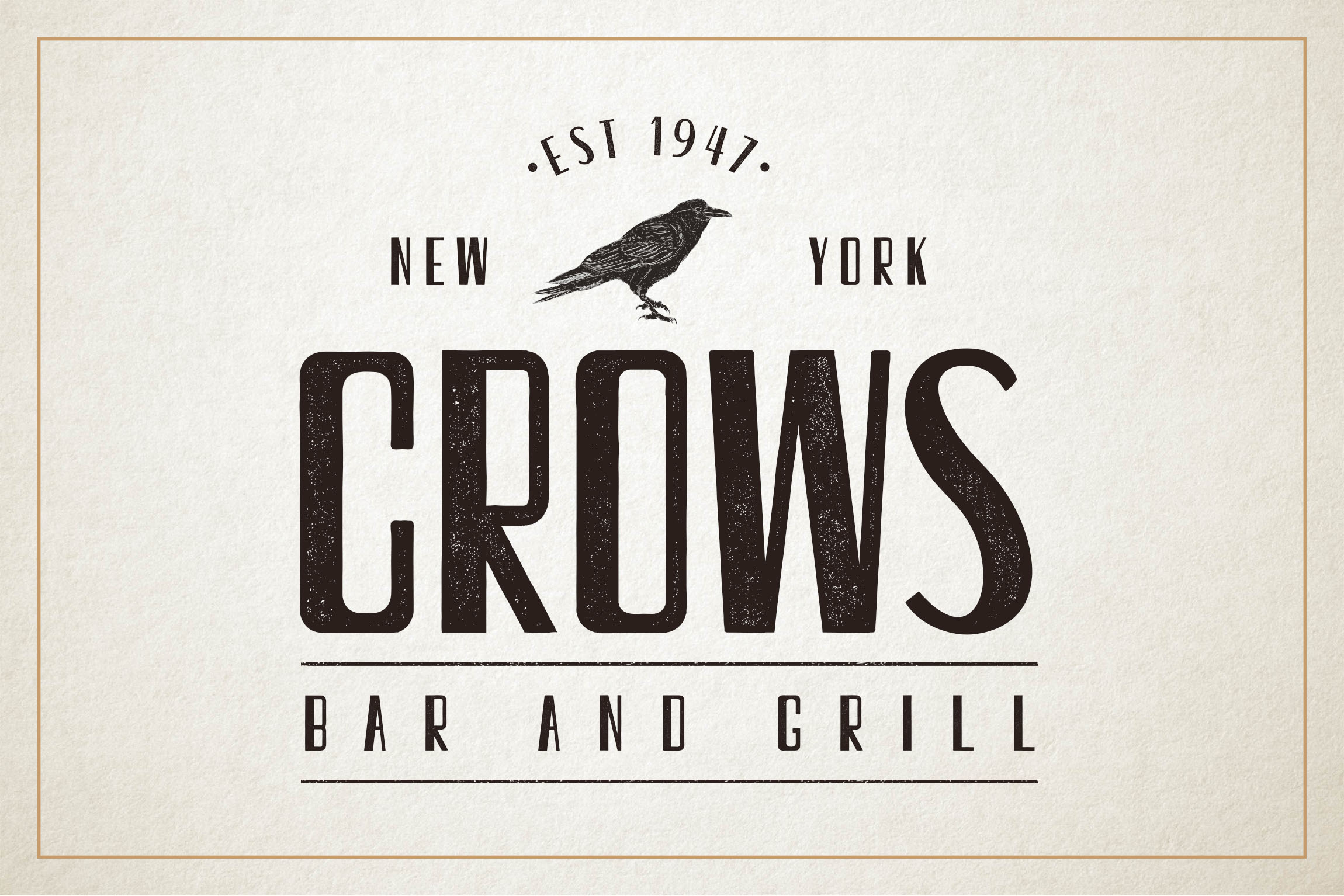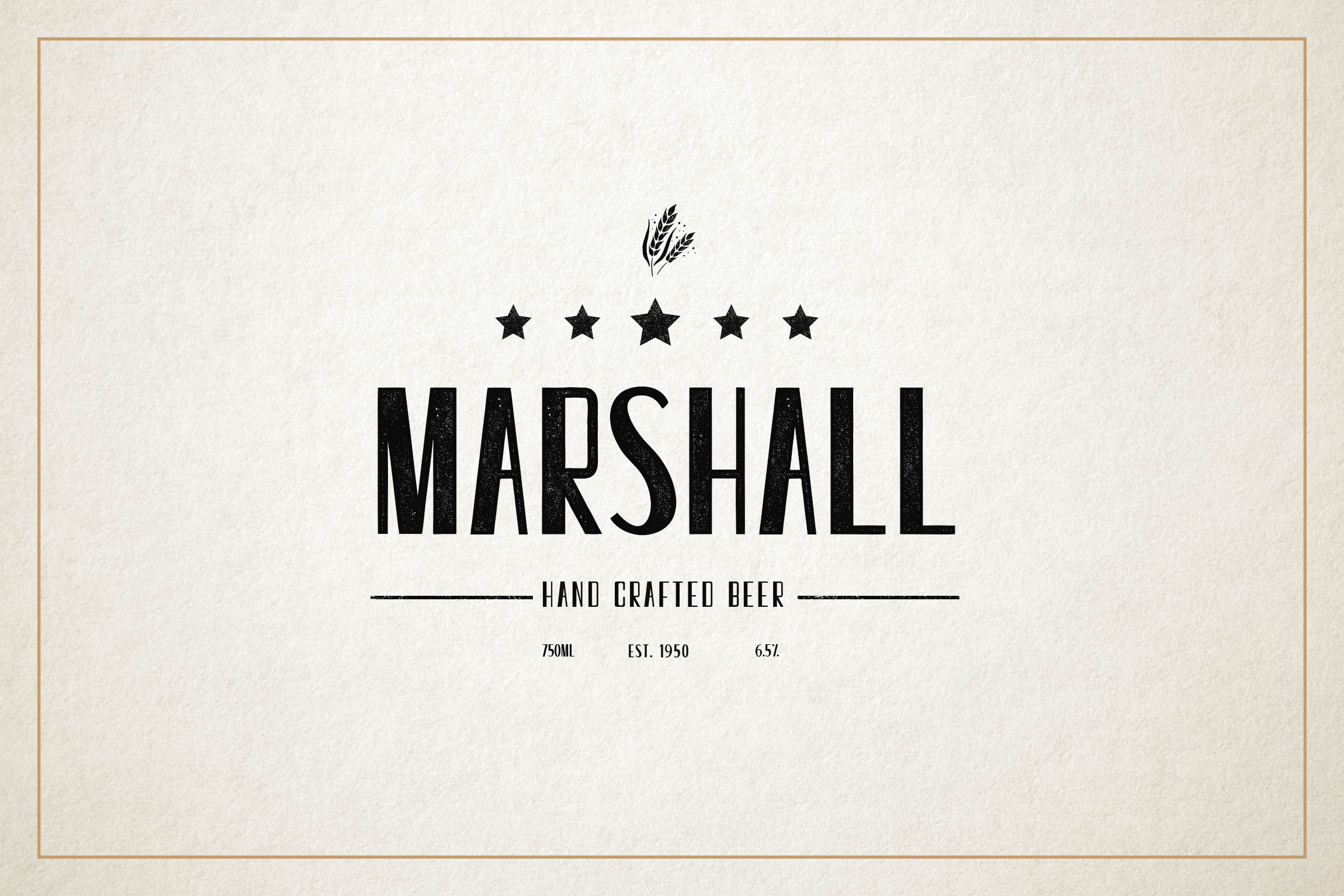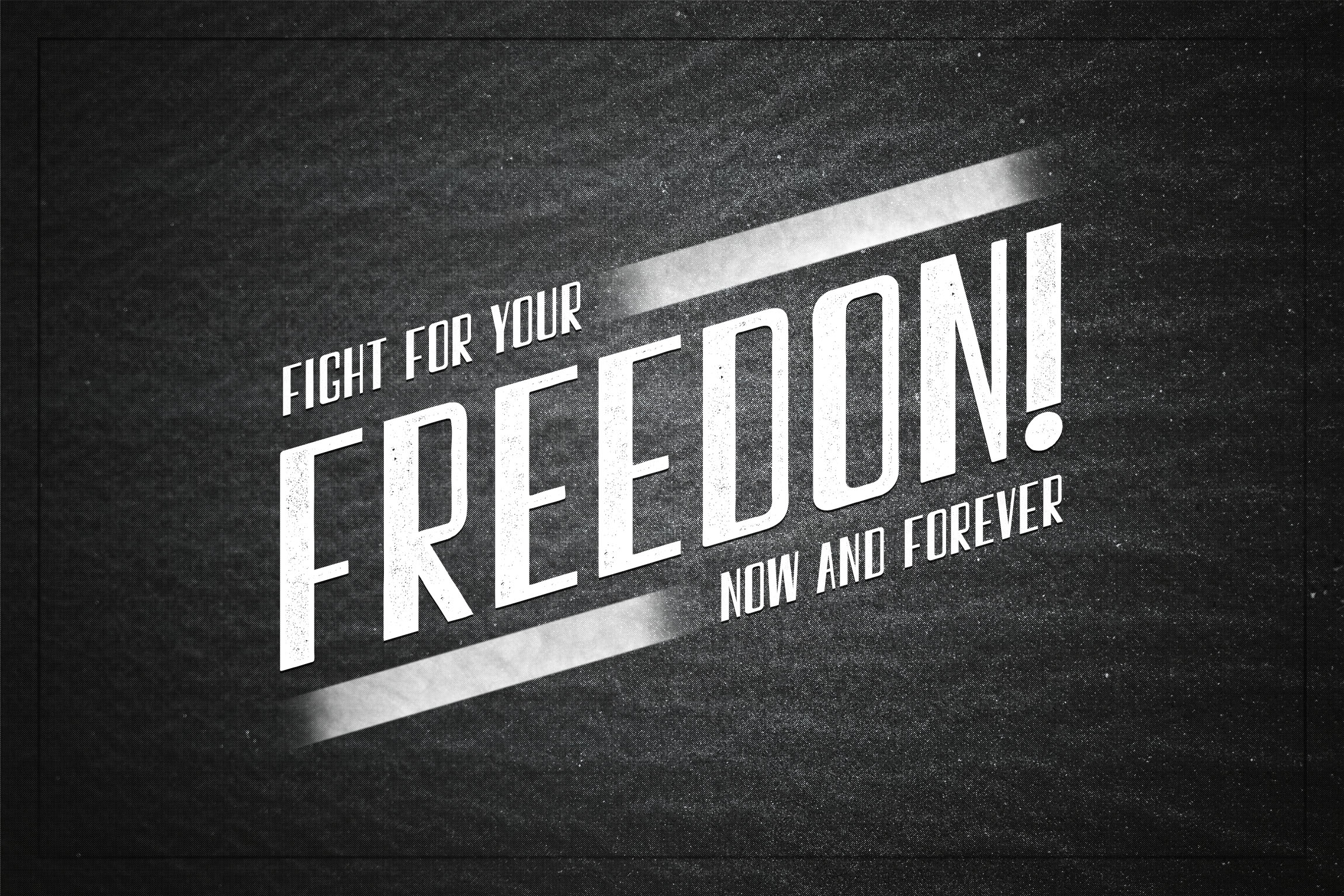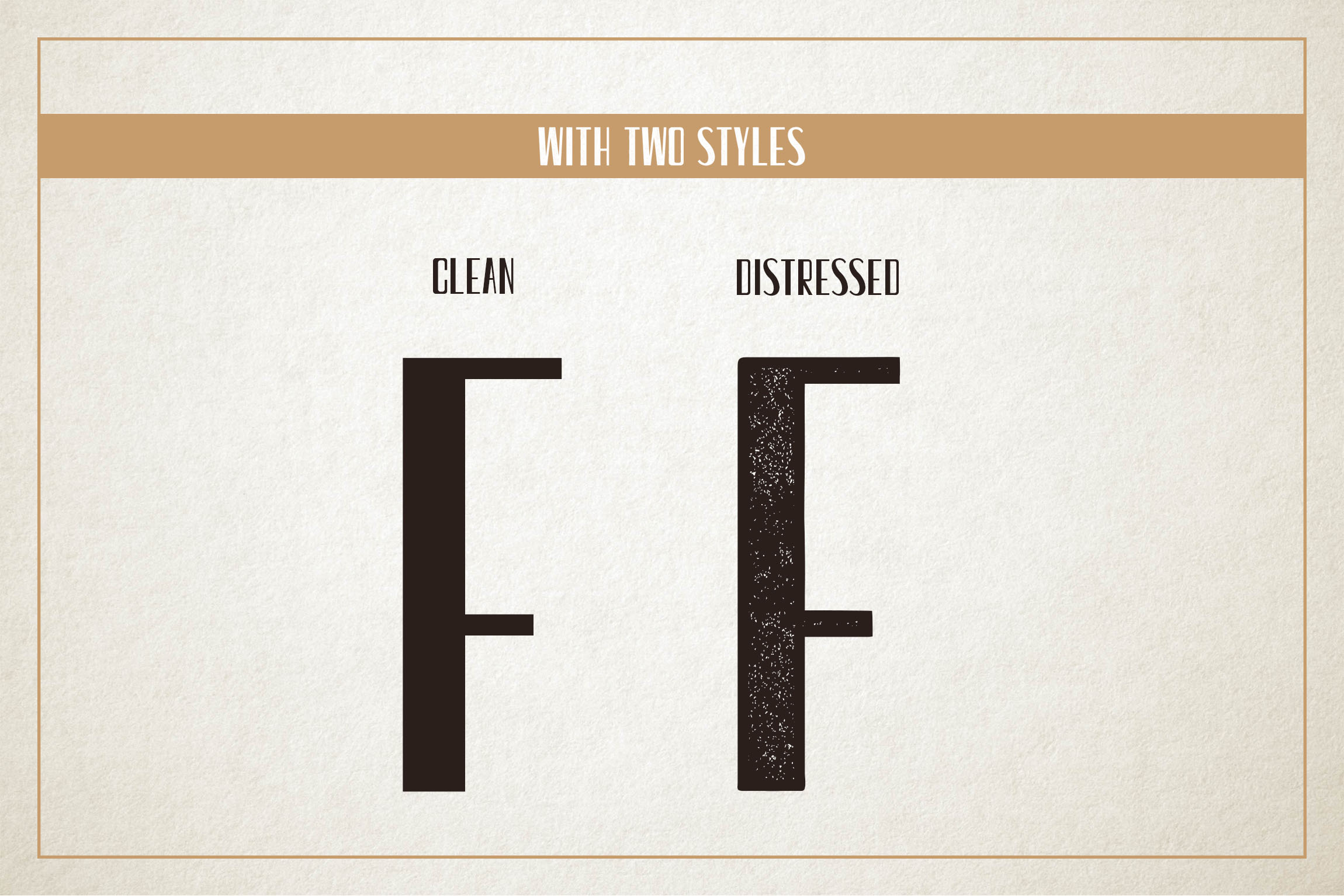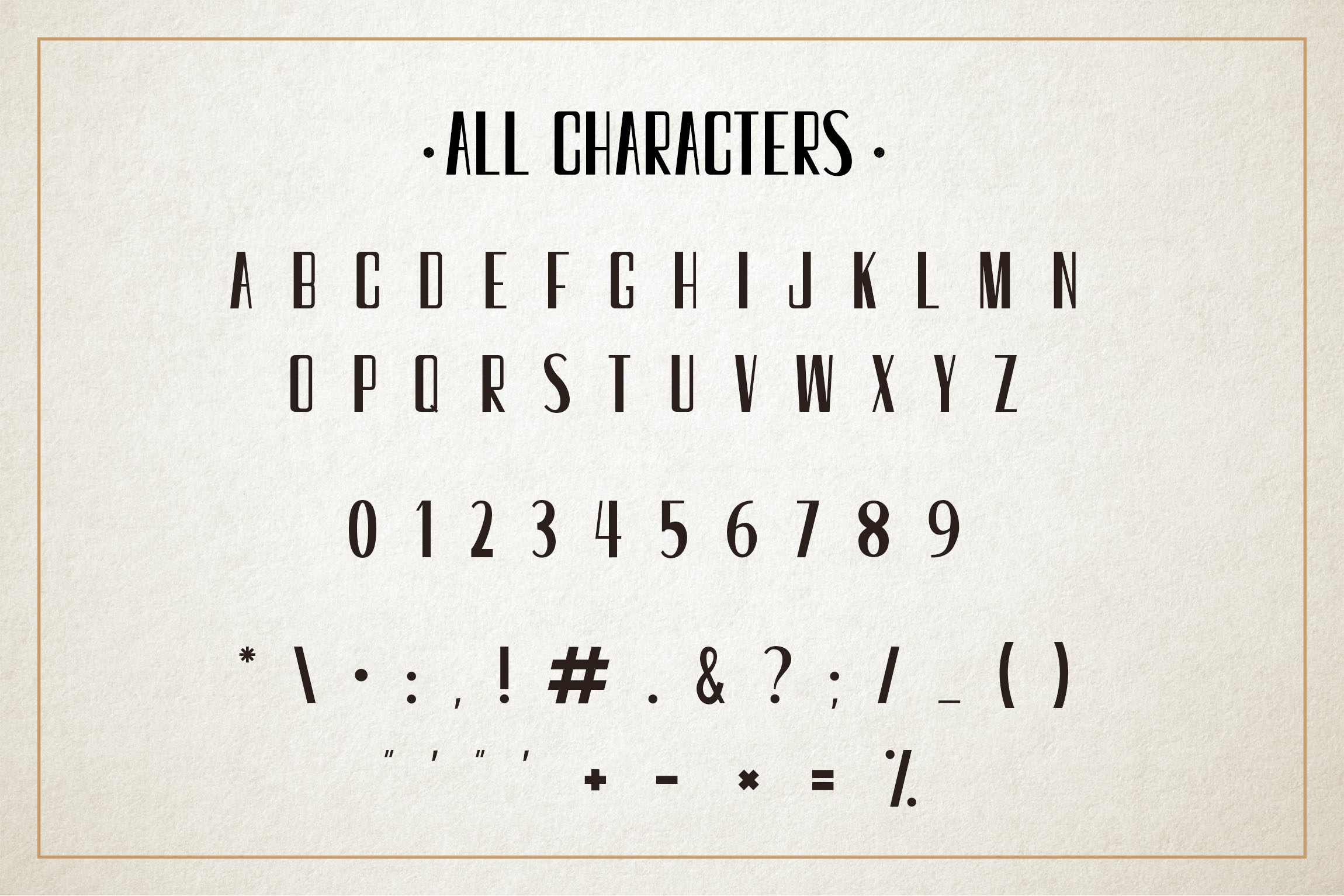
Introducing Clutch Font: The Ultimate Retro Design Companion
Are you a designer or crafter looking for the perfect font to give your retro designs a nostalgic touch? Look no further than Clutch Font, a versatile sans serif font that is sure to become your go-to choice for all your design needs. In this article, we’ll take a closer look at what makes Clutch Font so special and how it can elevate your designs to the next level.
What is Clutch Font?
Clutch Font is a modern sans serif font designed specifically with retro designs in mind. Its clean lines, simple shapes, and classic feel make it the perfect choice for designers who want to create designs that evoke a sense of nostalgia and timelessness. Whether you’re working on a logo, a poster, or a packaging design, Clutch Font is sure to impress.
Two Styles for Maximum Flexibility
One of the standout features of Clutch Font is that it comes in two distinct styles: clean and distressed. This allows designers to mix and match the two styles to create unique and eye-catching designs. The clean version of Clutch Font is perfect for designs that require a crisp and modern look, while the distressed version adds a touch of grit and texture to your designs.
Combining Clean and Distressed Styles
The real magic happens when you combine the clean and distressed versions of Clutch Font. This creates a visually interesting contrast that adds depth and character to your designs. For example, you could use the clean version for headings and the distressed version for body text, or vice versa. The possibilities are endless, and the flexibility of Clutch Font makes it easy to experiment and find the perfect combination for your design.
Perfect for Retro Designs
Clutch Font is specifically designed with retro designs in mind, making it the perfect choice for designers who want to create designs that evoke a sense of nostalgia. Whether you’re working on a design project that requires a vintage feel or simply want to add a touch of retro flair to your designs, Clutch Font is the perfect choice.
Key Features of Clutch Font
- Clean and Distressed Styles: Clutch Font comes in two distinct styles, allowing designers to mix and match to create unique designs.
- Sans Serif Font: Clutch Font is a modern sans serif font with clean lines and simple shapes.
- Retro Design Perfect: Clutch Font is specifically designed with retro designs in mind, making it perfect for designers who want to create designs that evoke a sense of nostalgia.
- Flexible and Versatile: Clutch Font can be used for a wide range of design projects, from logos and posters to packaging and more.
Tips for Using Clutch Font
Here are a few tips for getting the most out of Clutch Font:
- Experiment with Different Styles: Don’t be afraid to experiment with different combinations of clean and distressed styles to find the perfect look for your design.
- Pair with Other Fonts: Clutch Font pairs well with other sans serif fonts, so feel free to experiment with different font combinations.
- Use for Headings and Body Text: Clutch Font is versatile enough to be used for both headings and body text, making it a great choice for designers who want a font that can do it all.
| Font Name | Clutch Font |
| Author | Corgi Astronaut |
Clutch Font is a versatile and stylish sans serif font that is perfect for designers and crafters who want to add a touch of retro flair to their designs. With its clean and distressed styles, Clutch Font offers maximum flexibility and can be used for a wide range of design projects. Whether you’re working on a logo, poster, or packaging design, Clutch Font is sure to impress.